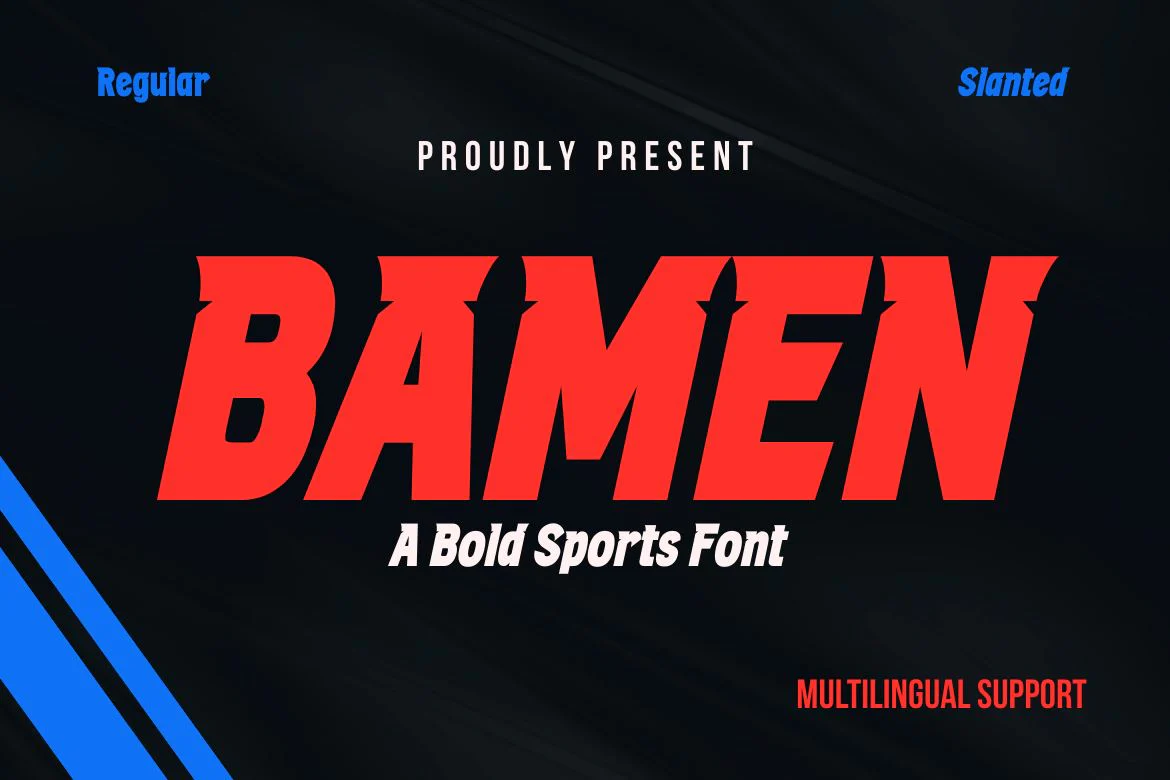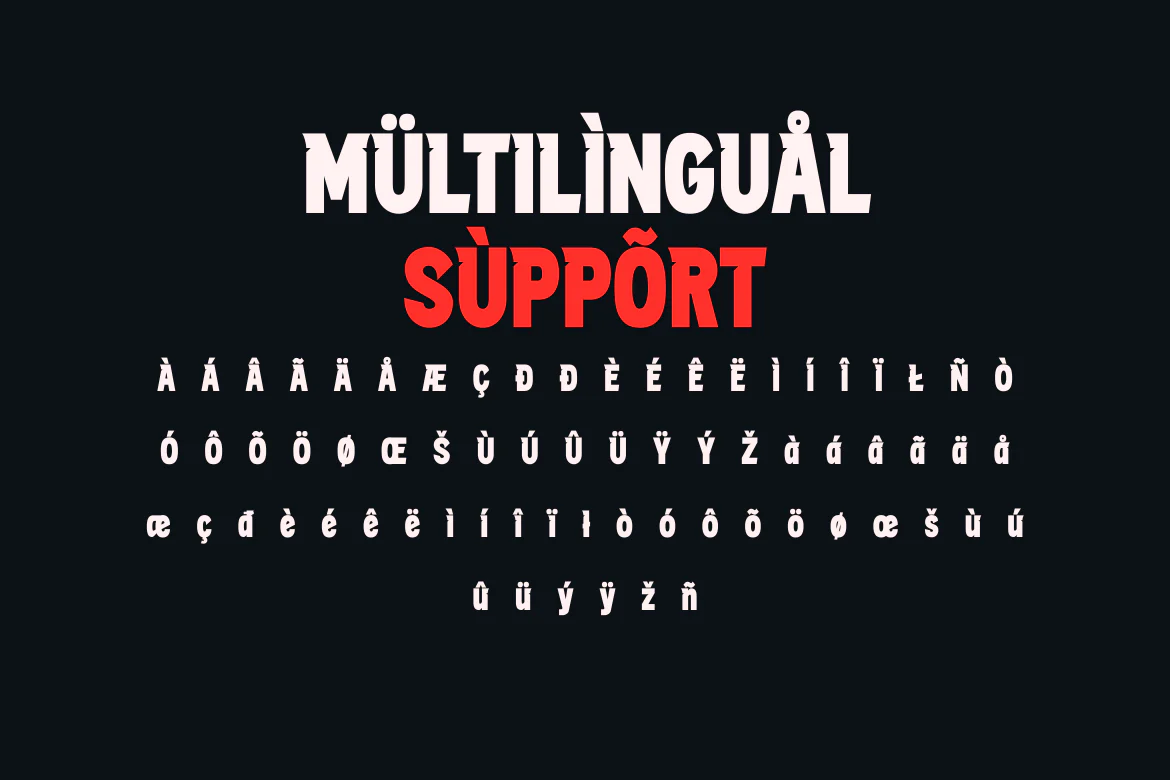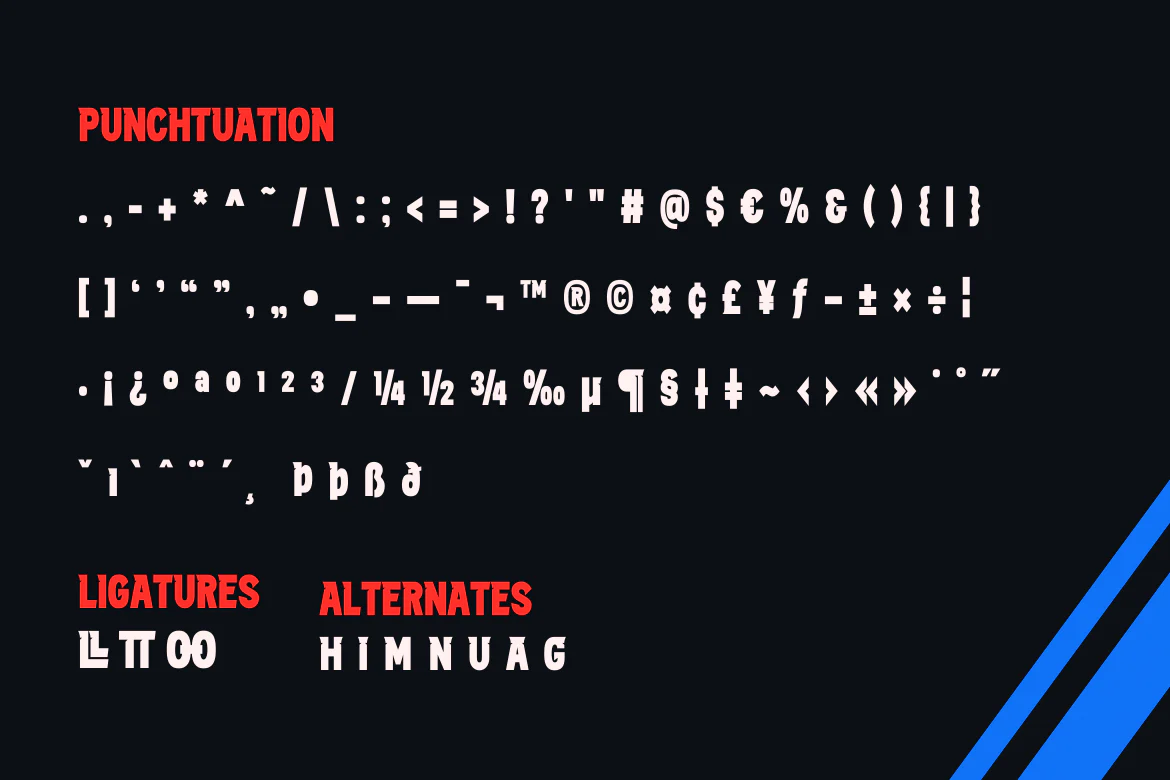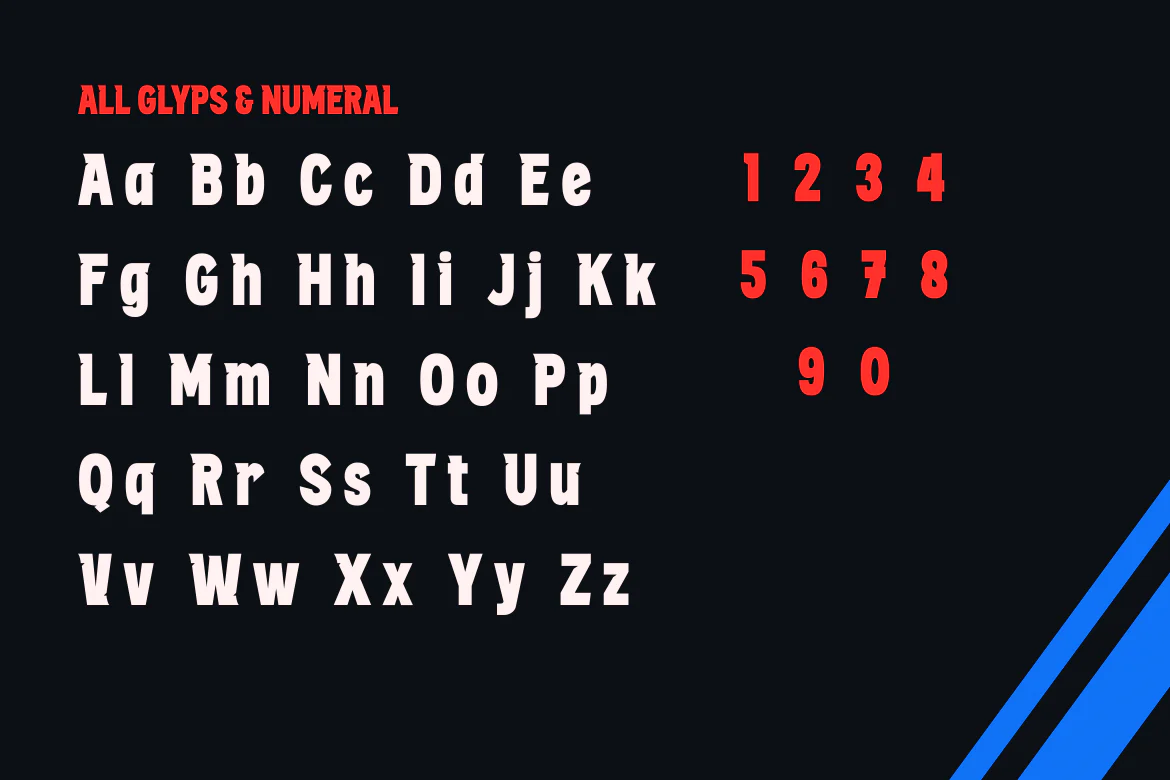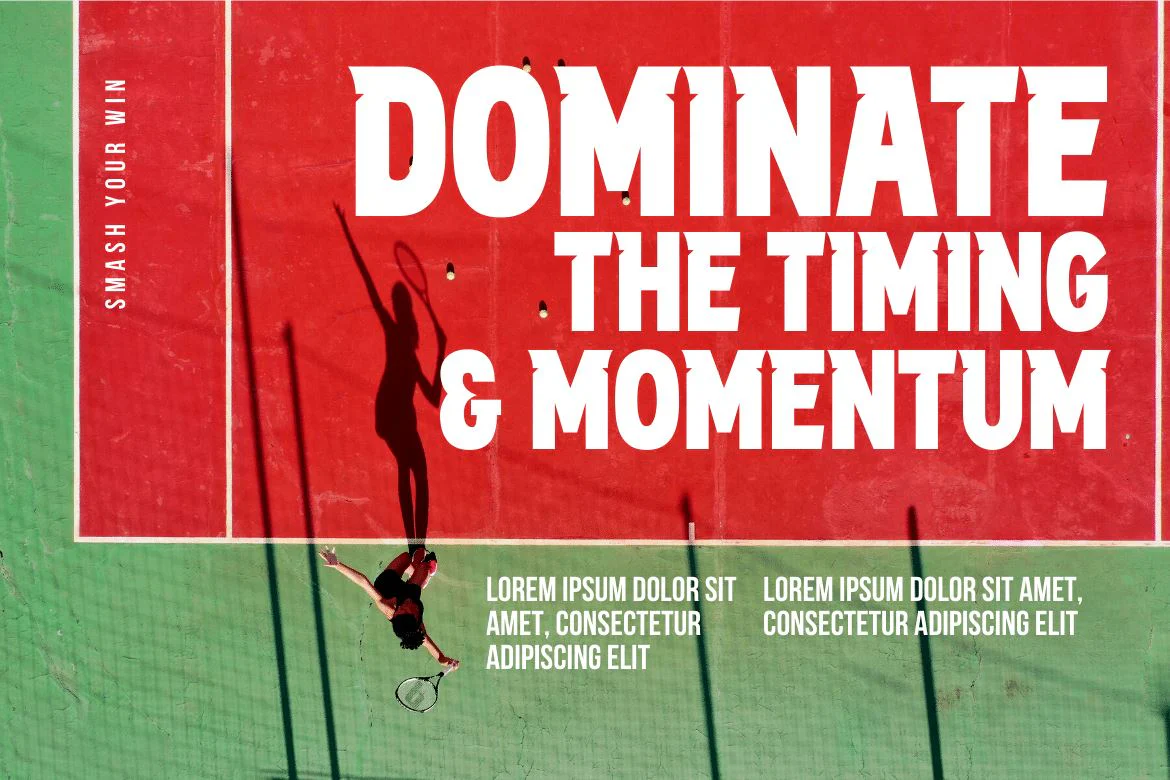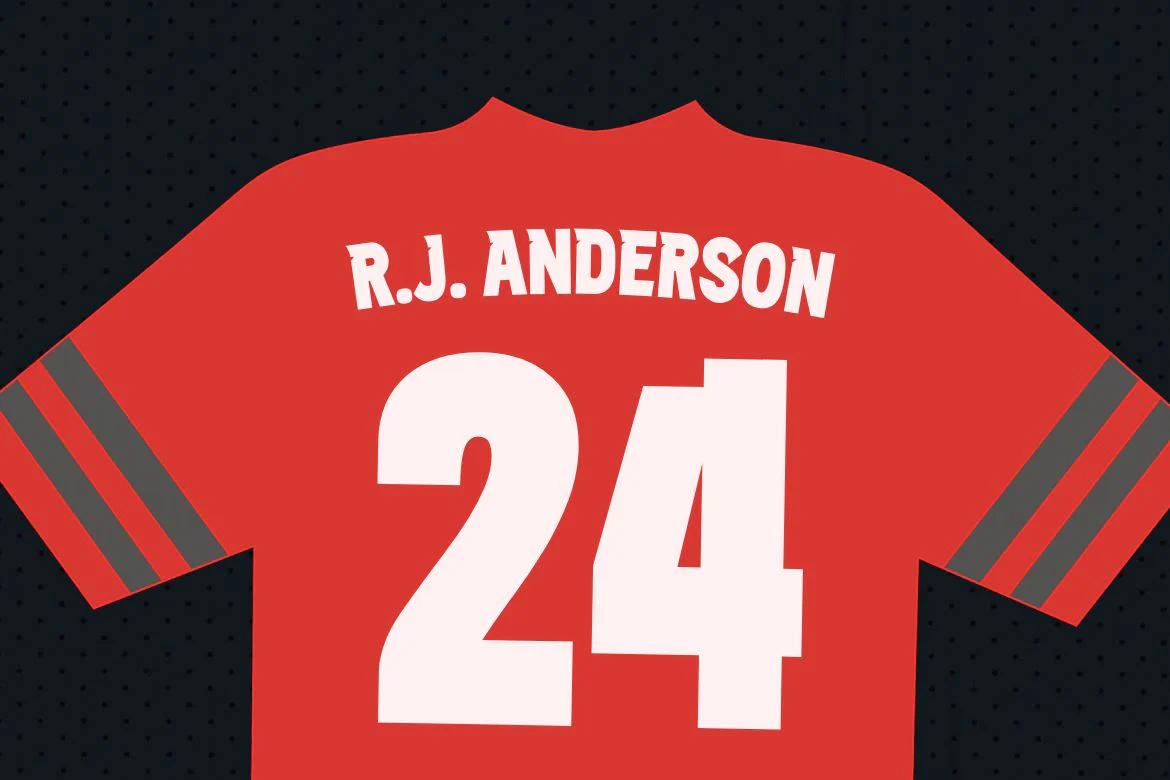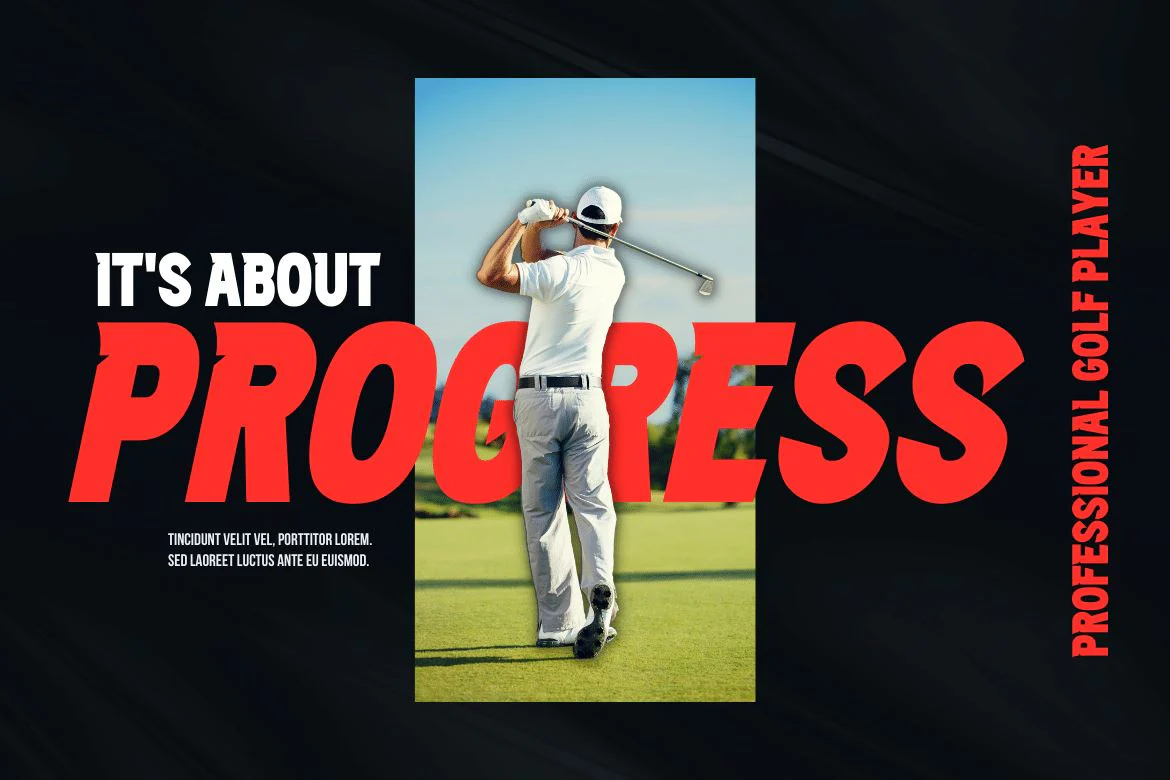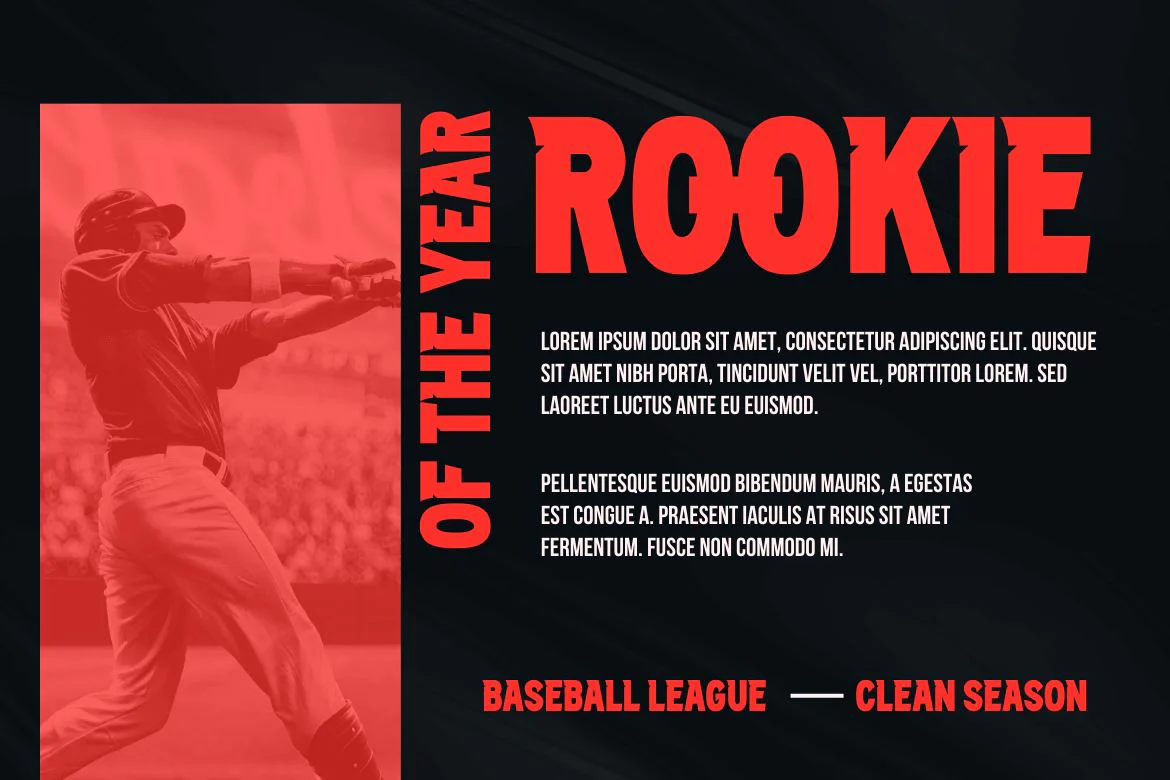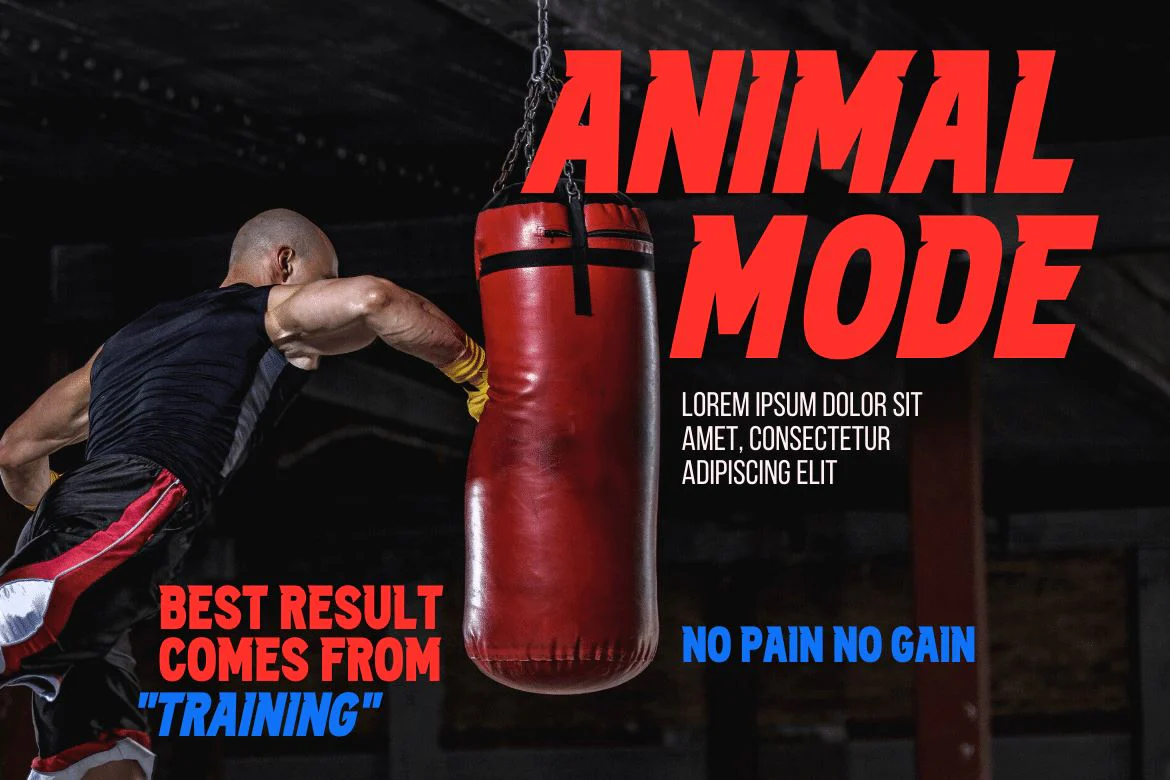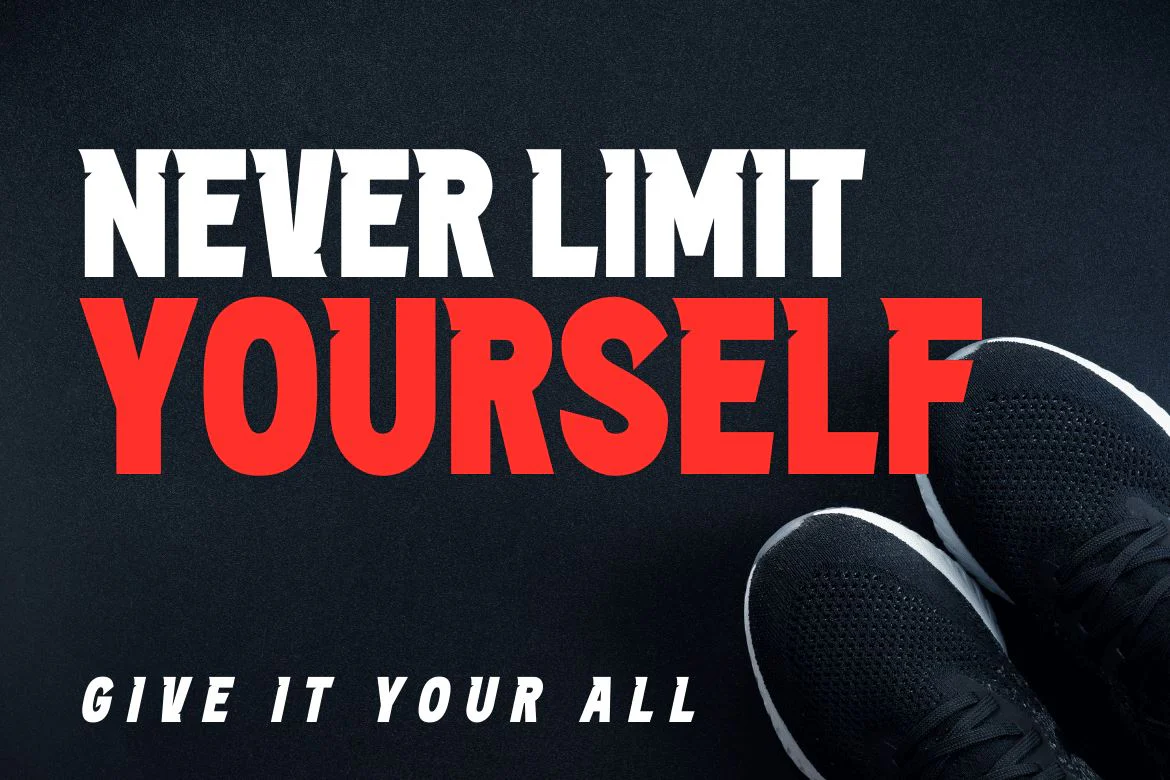
BAMEN | Athletic Font
Are you looking for a modern, athletic sports font? Popular typeface Bamen is appropriate for contemporary designs, including sports, vehicle commercials, and headlines. This dynamic typeface provides your title’s speed and power with its cool cuts and wide strokes. This typeface was made with speed in mind because it was created primarily for use in the fast-paced world of sports. It has a fantastic overall vibe that exudes speed, strength, and power while still maintaining its distinctive beauty.